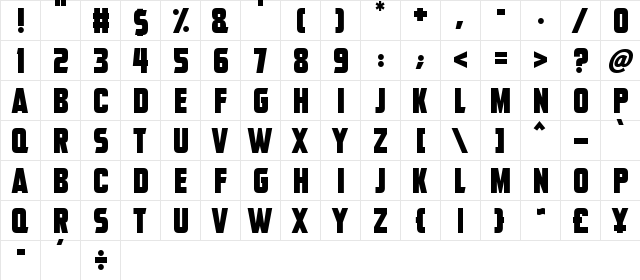
This Is The Future Regular
Design Context for This Is The Future Typeface
This Is The Future has a distinctly futuristic character, with geometric precision and clean angles that feel at home in technology, gaming, and sci-fi contexts.
Pro Tip: Try This Is The Future with generous letter-spacing in UI labels and navigation — the geometric forms benefit from room to breathe.